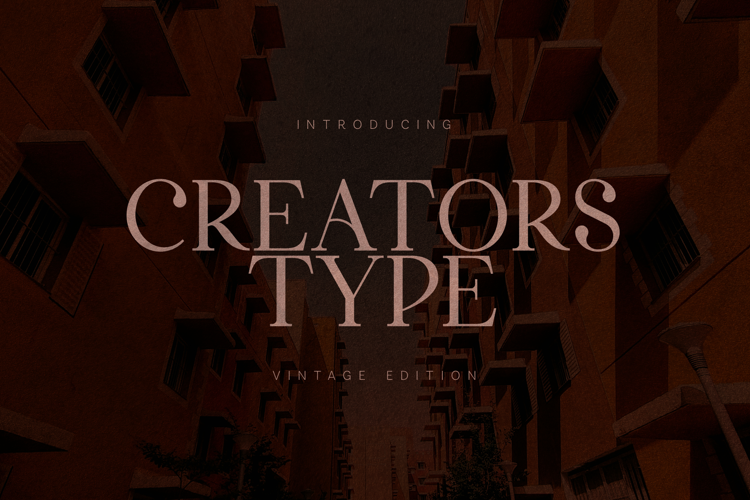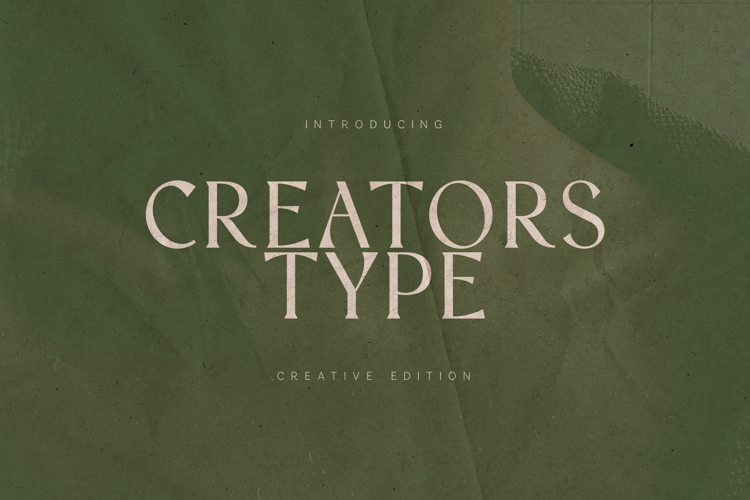
Reaons - Elegant Thin Serif Font
Elevate your design projects to levels of undeniable sophistication. Reaons - Elegant Thin Serif Font is a masterclass in modern classicism, featuring incredibly delicate hairlines paired with strong, confident stems. This dramatic contrast creates a compelling visual rhythm, ensuring your headlines possess a powerful presence without sacrificing inherent elegance. Its refined structure, optimized for high-impact display use, transforms simple text into a statement of high-end craftsmanship and grace.
Unlock boundless creative potential with advanced OpenType features. With its extensive multilingual support, Reaons - Elegant Thin Serif Font adapts seamlessly across global markets, making it incredibly versatile for international projects. This typeface includes a curated collection of beautiful ligatures and over sixty stylistic alternates that allow designers to craft truly unique logotypes and bespoke typographic solutions that resonate universally.
Perfectly engineered for aspirational brands seeking a timeless aesthetic. Reaons - Elegant Thin Serif Font is the definitive choice for projects demanding refinement and prestige. It is perfect for luxury branding, exclusive editorial design, premium perfume packaging, sophisticated jewelry catalogs, and high-fashion identity systems. This font delivers clarity and authoritative beauty, ensuring brand materials convey uncompromising quality and historical gravitas.
Invest in typography that speaks volumes about your commitment to premium quality. The subtle flared serifs and generous proportions of Reaons - Elegant Thin Serif Font guarantee exceptional legibility at display sizes while maintaining an air of vintage glamour. Download this essential tool today to infuse your next campaign with instant historical richness and unrivaled luxury, setting a new standard for aesthetic excellence in the market.